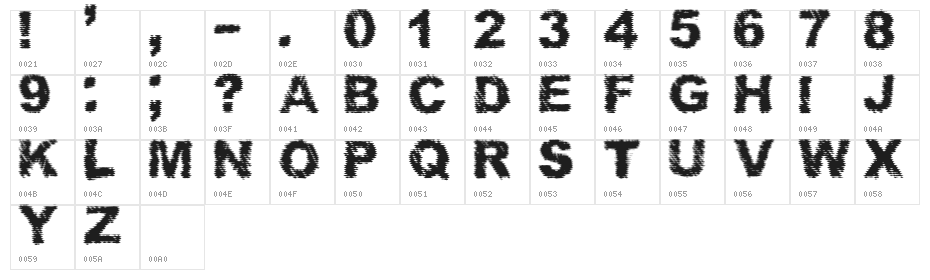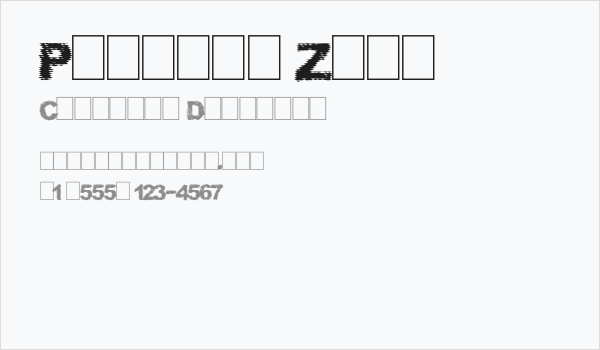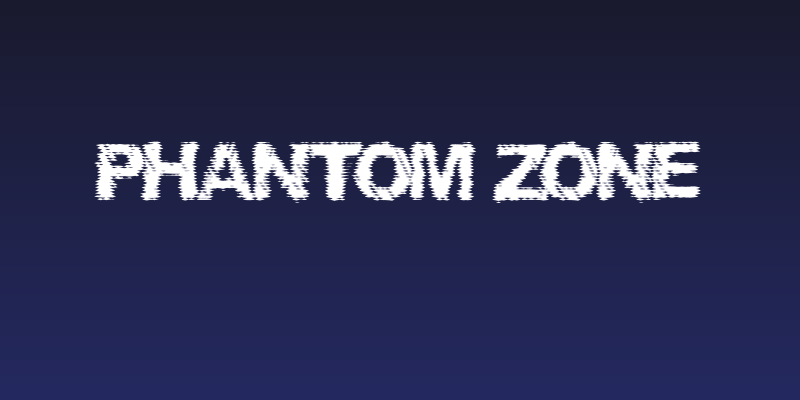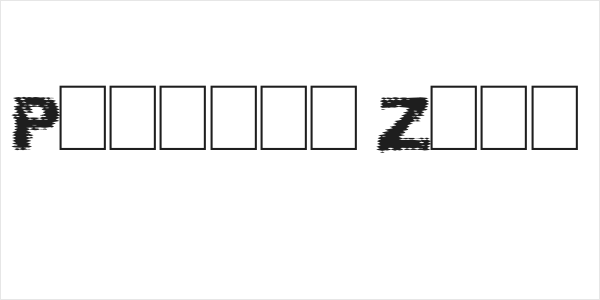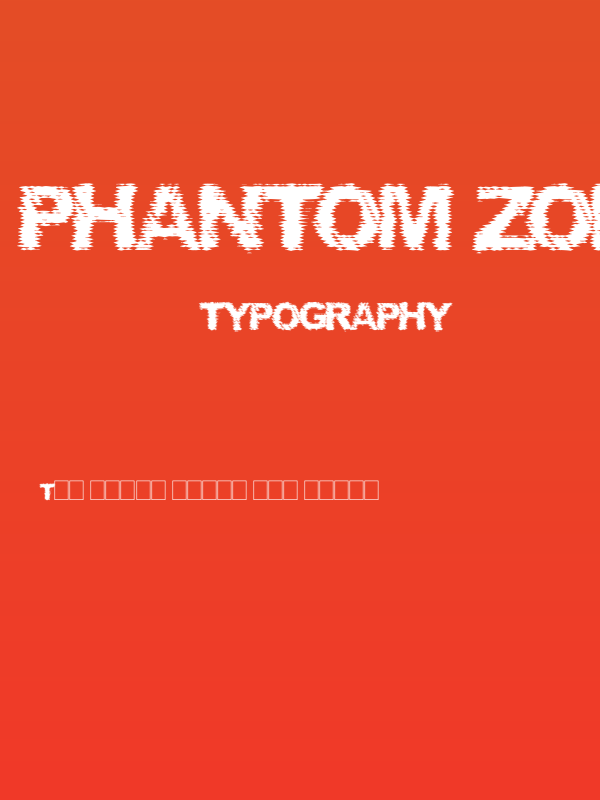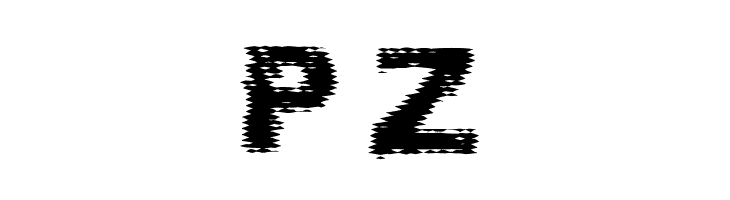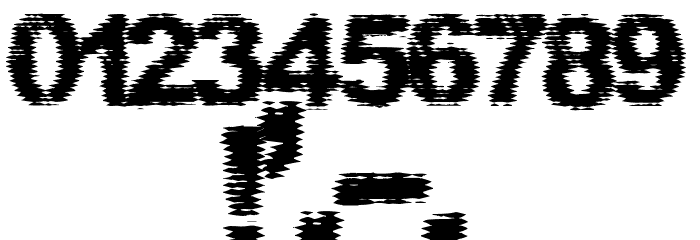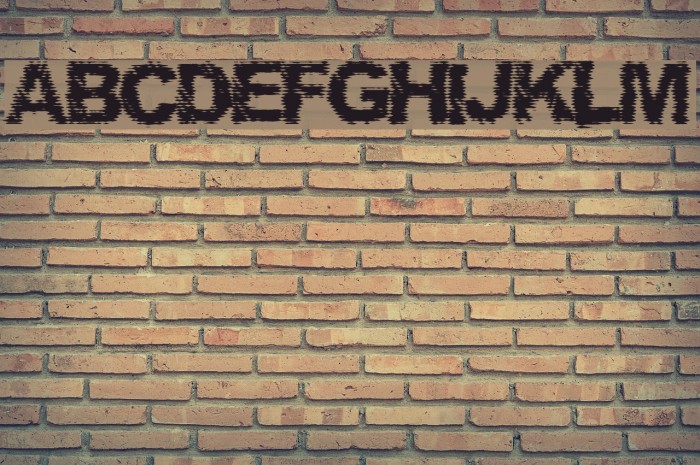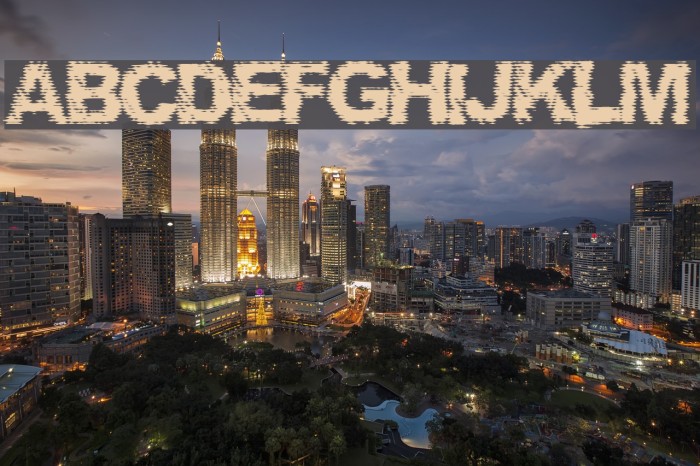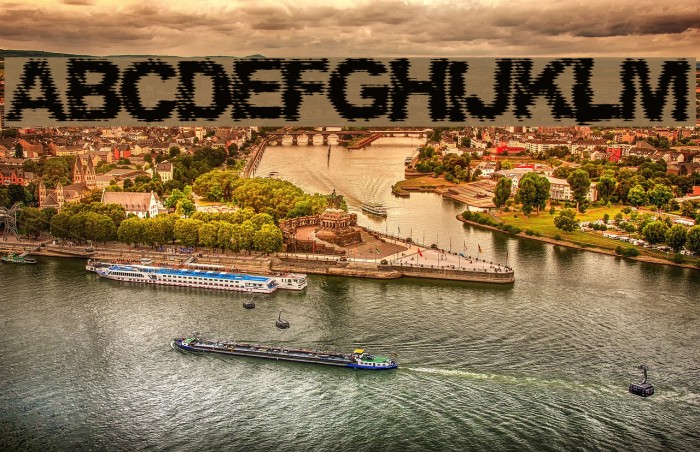
Phantom Zone Font
Phantom Zone Description
This font features a unique, distorted appearance with a glitch effect that gives it a dynamic and edgy look. The characters are bold and uppercase, with a consistent width and a slightly expanded form. The irregular, jagged edges create a sense of movement and energy, making it stand out as a display font. The numbers and special characters share the same glitchy style, ensuring a cohesive look across all elements. This font is ideal for projects that require a modern, digital aesthetic with a touch of chaos and creativity.
| Proposed Projects | Ideal for digital art, video game graphics, music album covers, and tech-themed posters. |